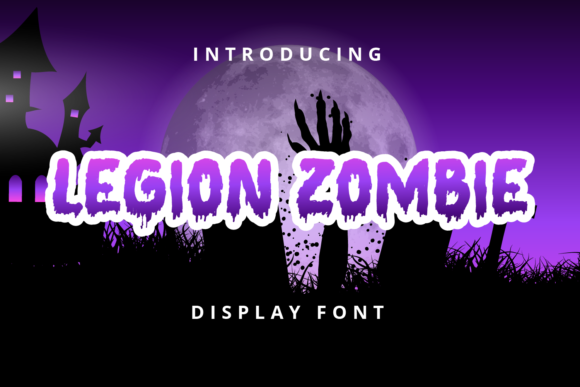
Unleash a Spine-Tingling Spooktacular with Legion Zombie: The Font That Haunts Your Designs
In a realm where shadows dance and goosebumps rise, there exists a font that captures the essence of the undead, the macabre, and the downright eerie. Behold Legion Zombie, a display font that will cast an enchanting spell on your Halloween party designs, horror-themed projects, and any creation craving a bone-chilling touch.
Conjured by the masterminds at Planetz Studio, Legion Zombie is a font that conjures up images of spine-tingling tales, haunted houses, and the thrill of the supernatural. Its eerie charm seeps into every letterform, adding a touch of otherworldly intrigue to your designs.
With Legion Zombie as your weapon of choice, you'll weave tales that send shivers down spines. Design invitations that hint at a night of terror, craft posters that beckon thrill-seekers to your Halloween extravaganza, or create T-shirts that exude an air of spooky sophistication.
The possibilities are as limitless as a graveyard on a moonlit night. Whether you're a seasoned graphic designer seeking to add a chilling dimension to your work or a creative enthusiast looking to infuse your designs with a touch of the supernatural, Legion Zombie is your beacon of inspiration.
Immerse yourself in the realm of the undead and let Legion Zombie guide your designs towards the realm of the extraordinary. Dare to embrace the darkness and watch as your creations come alive with an aura of spine-tingling enchantment.